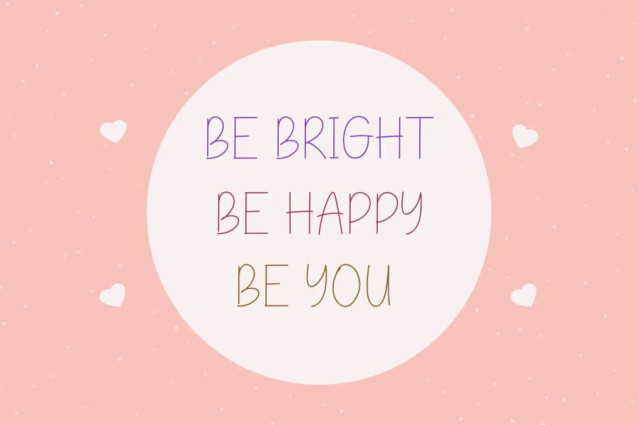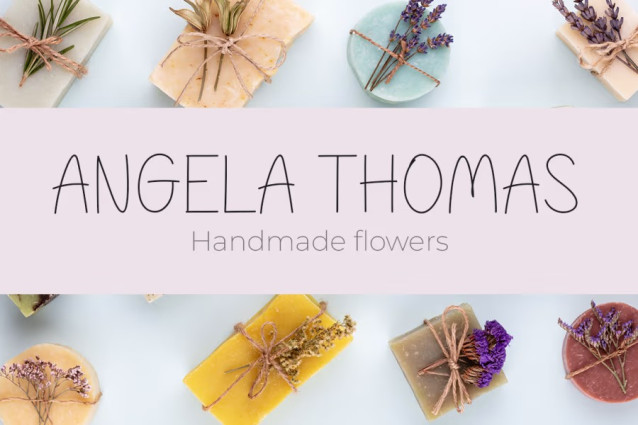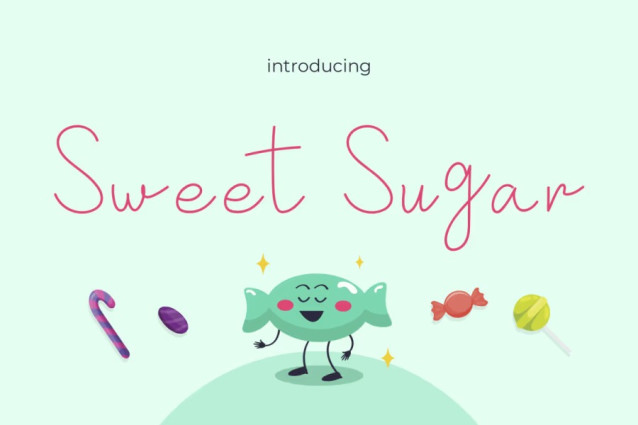
Sweet Sugar Handwriting Font
Sweet Sugar Handwriting Font is a delightful handwritten typeface designed to bring warmth, joy, and creativity to any project. Inspired by the fun and carefree nature of childhood, this font features smooth curves, playful strokes, and a charming handwritten style. Its friendly and approachable design makes it perfect for projects that need a touch of sweetness and happiness.
The light, flowing letterforms resemble natural handwriting, giving it an organic and personal feel. Additionally, its rounded edges and slightly irregular strokes make the font feel soft and cheerful. Because of this, Kids Font Sweet Sugar works exceptionally well in projects aimed at children, family-friendly brands, and any design that needs a fun, inviting touch.
Moreover, this font is highly versatile. Whether used in digital or print formats, it remains visually appealing and easy to read. The balance between playfulness and readability ensures that it stands out without being overwhelming. It works beautifully for branding, social media content, product packaging, and more. If you’re looking for a font that exudes happiness and creativity, Kids Font Sweet Sugar is the perfect choice!